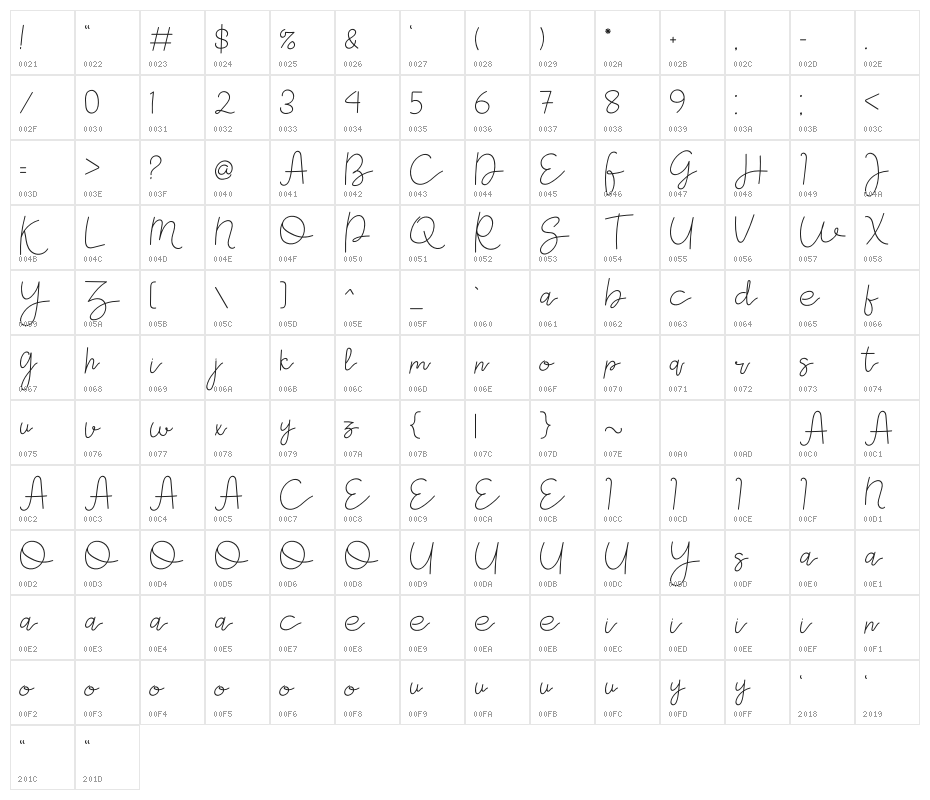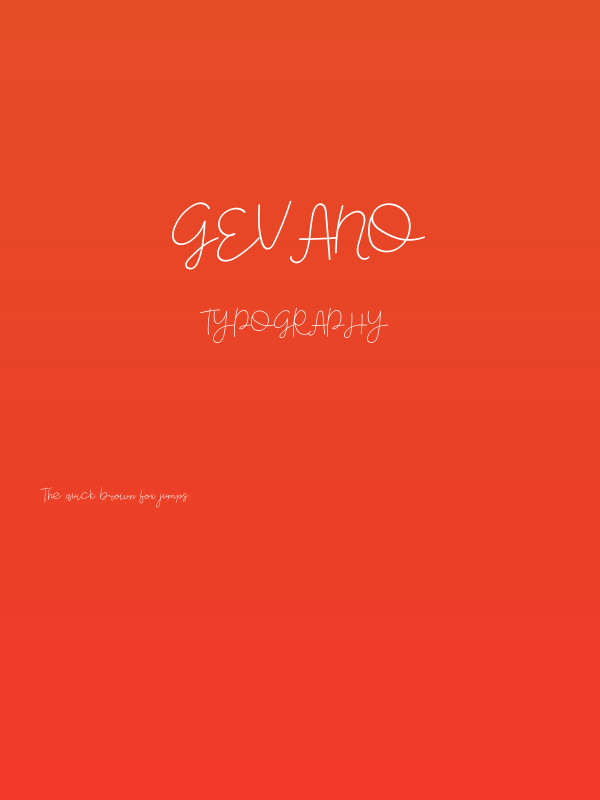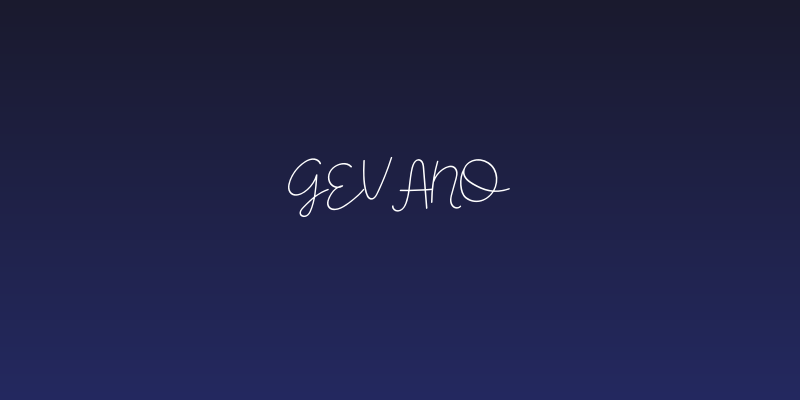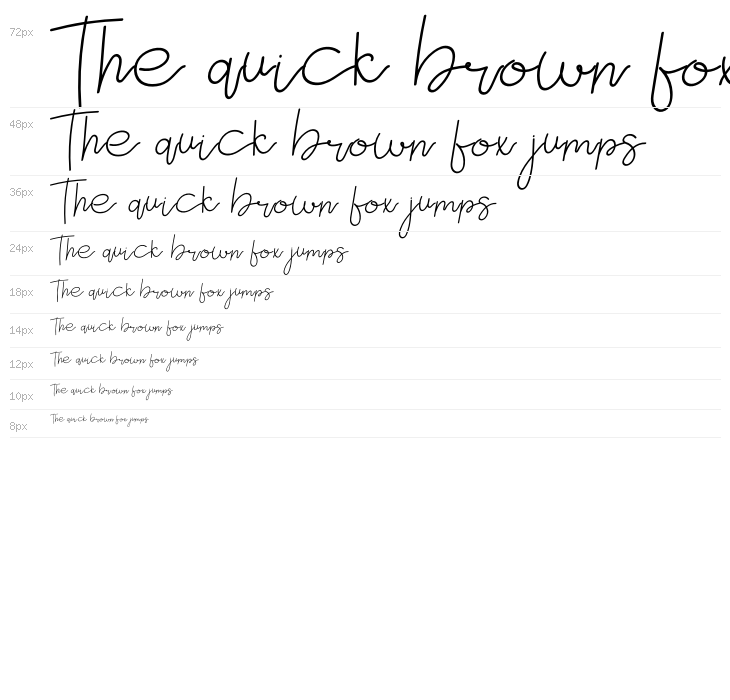
Gevano Font
Gevano Description
This font features a flowing, cursive style with a handwritten appearance. The letters are connected in a smooth, continuous manner, giving it an elegant and personal touch. The uppercase letters are slightly taller and more pronounced, while the lowercase letters maintain a consistent flow. The numerals and special characters are designed to match the overall script style, ensuring a cohesive look. The strokes are thin and delicate, adding to the font's graceful aesthetic. This font is ideal for projects that require a personal or artistic touch, such as invitations, greeting cards, or branding materials.
| Overall Style | Elegant, Handwritten |
| Use Case | Invitations, Greeting cards, Personal branding |
| Proposed Projects | Ideal for wedding invitations, personal branding, greeting cards, and artistic projects. |